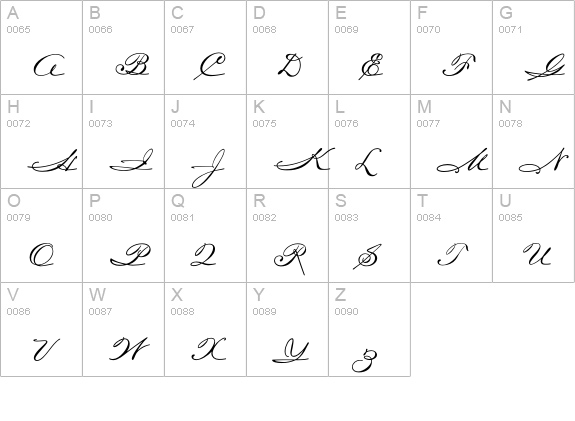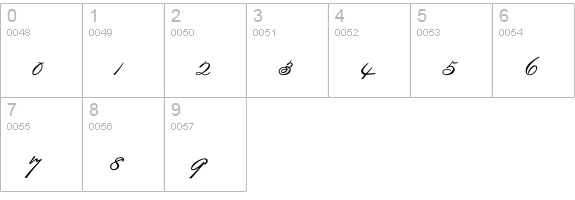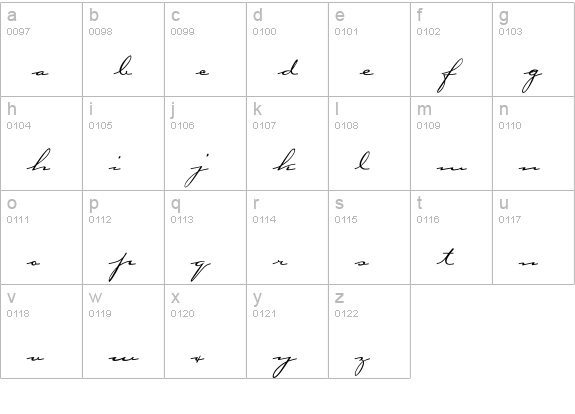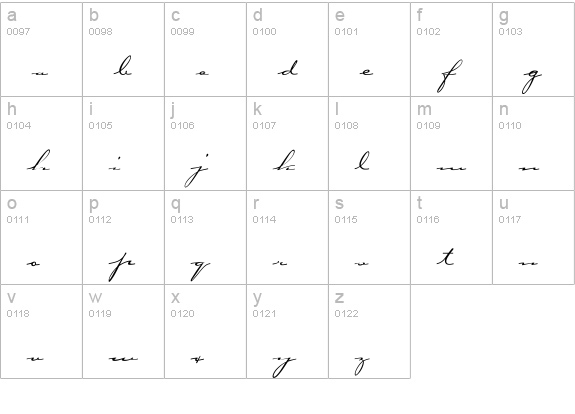
CarpenterICG Font Details
CarpenterICG font is a versatile and stylish typeface that exudes a sense of craftsmanship and attention to detail. With its clean lines and modern aesthetic, this font is perfect for a wide range of design projects, from branding to editorial layouts. Its sturdy, yet elegant letterforms make it a great choice for both digital and print applications. The best part? CarpenterICG font is available for free download at FontsMarket.com. Whether you're a designer looking to add a touch of sophistication to your work or a business owner in need of a unique font for your branding, CarpenterICG has you covered. Take advantage of this incredible offer and elevate your designs with this stunning font today!